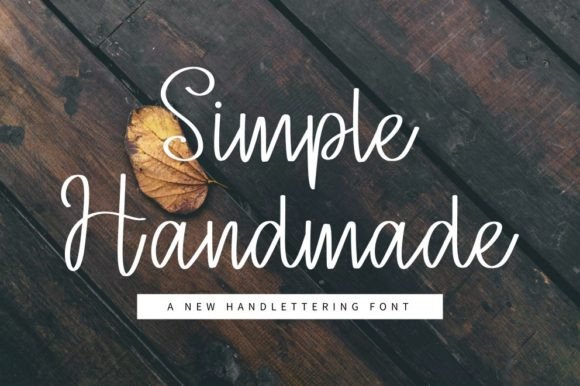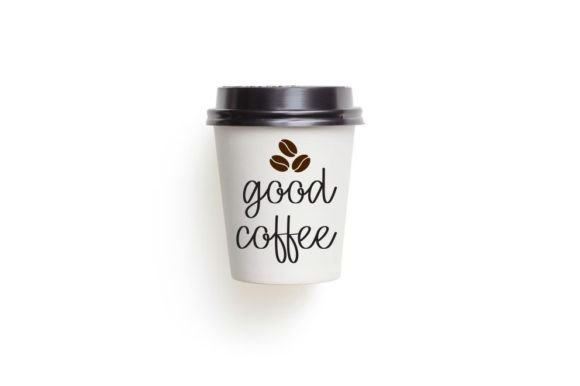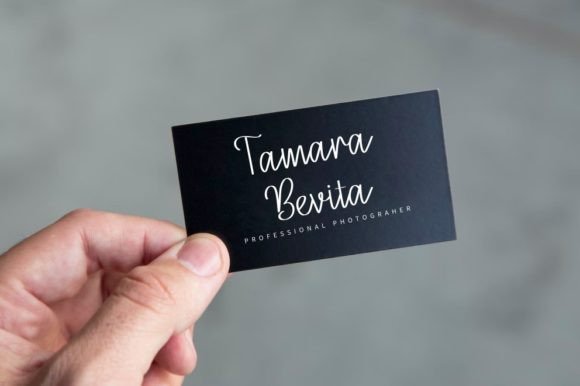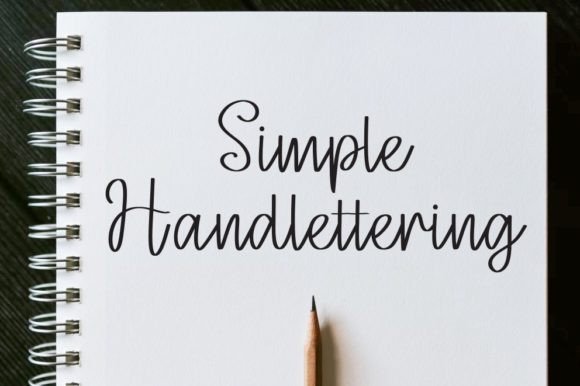
Simple Handmade Font
About Simple Handmade Font
**Simple Handmade:** *Your Go-To Font for Fun and Friendly Designs*
Meet Simple Handmade, your new favorite go-to font for adding a fun and friendly touch to all your creative projects. This handwritten gem is designed to be versatile and adaptable, making it the perfect choice whether you’re crafting, working on digital designs, preparing presentations, or creating heartwarming greeting cards. No matter the occasion, Simple Handmade is here to add a touch of personality to your work.
Crafting takes on a whole new level of enjoyment with Simple Handmade. Its playful and approachable style brings a sense of fun to DIY projects, making every piece you create even more special. Whether you’re scrapbooking, making handmade gifts, or working on any other craft, this font will infuse your creations with a personal and charming flair.
Digital design becomes a breeze with Simple Handmade. Its clean yet whimsical appearance is a breath of fresh air in the digital realm. Use it to add a touch of humanity to your digital products, websites, or social media graphics. Simple Handmade’s friendly demeanor helps you connect with your audience on a personal level.
Presentations gain a creative edge when you incorporate Simple Handmade into your slides. This font’s casual charm is perfect for injecting a bit of informality into your business or educational presentations. It’s an ideal choice when you want to strike a balance between professionalism and approachability.
Greeting cards come to life with Simple Handmade. Whether you’re designing birthday cards, thank-you notes, or holiday greetings, this font’s playful yet refined style conveys your warmest wishes with a personal touch. Recipients will appreciate the thought and effort you put into your heartfelt messages.
Simple Handmade is more than just a font; it’s a versatile tool that adapts to your needs, making it your go-to choice for various occasions. Its friendly and approachable appearance makes it suitable for crafts, digital design, presentations, and greeting cards. No matter how you use it, Simple Handmade adds a delightful and personal touch to your creative projects. It’s the font that brings a smile to your designs and makes every occasion a little more special.